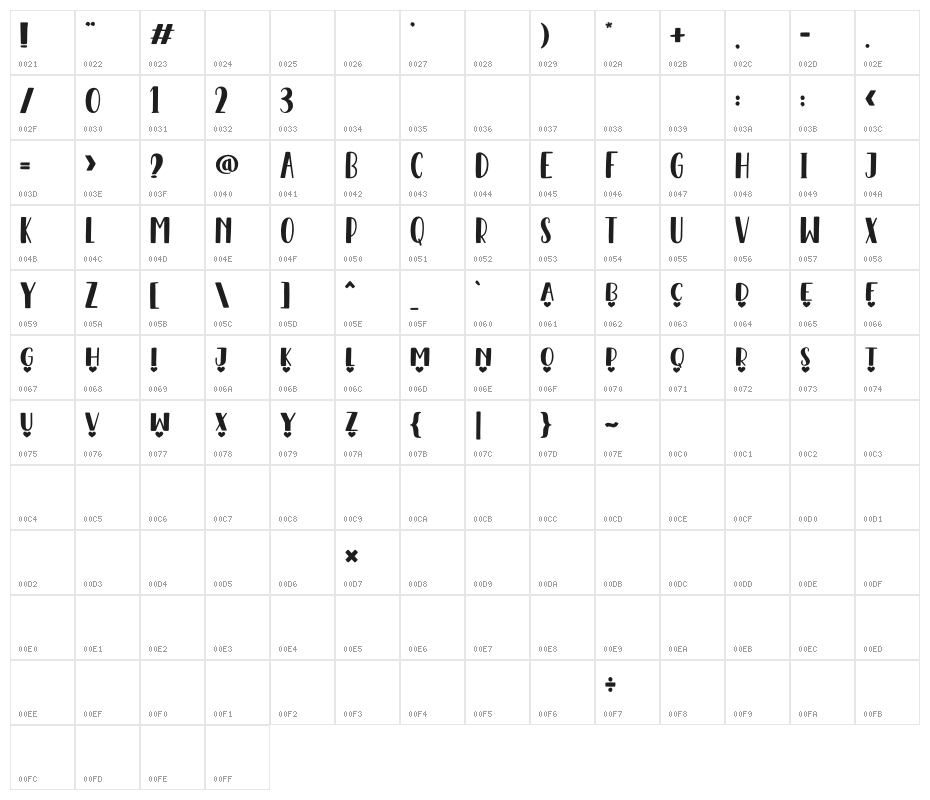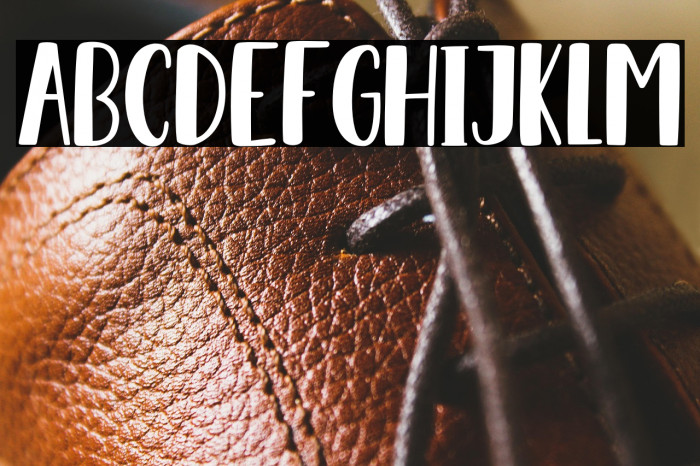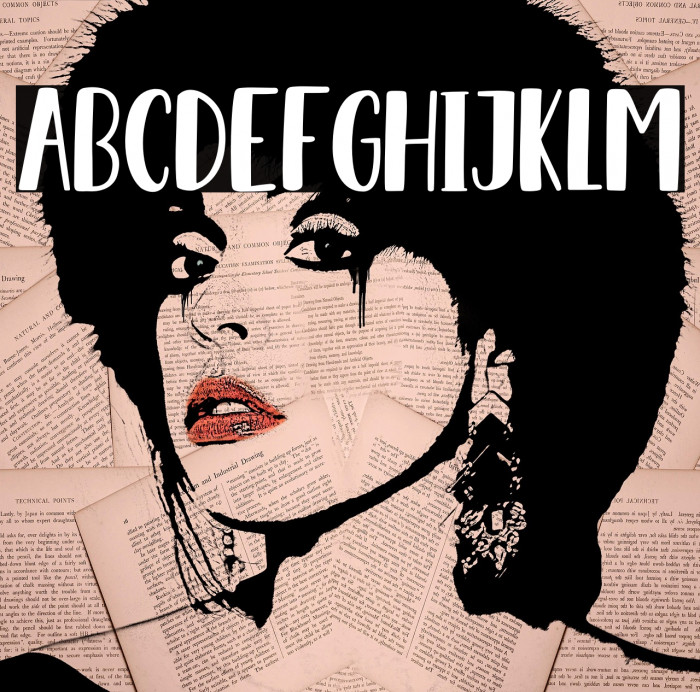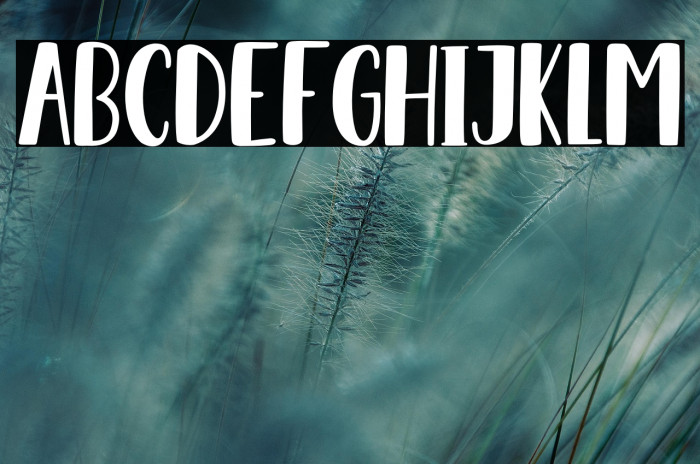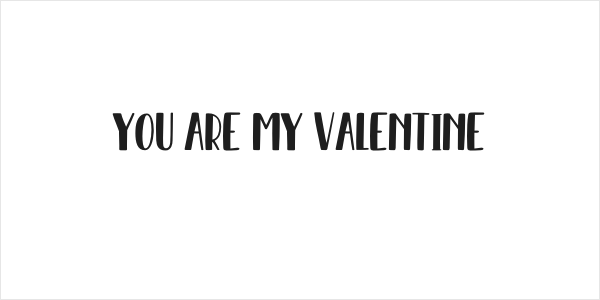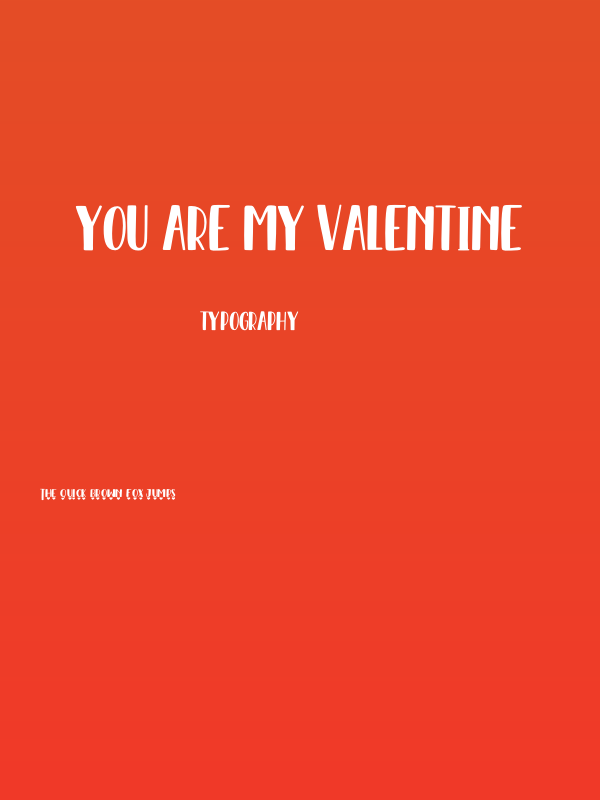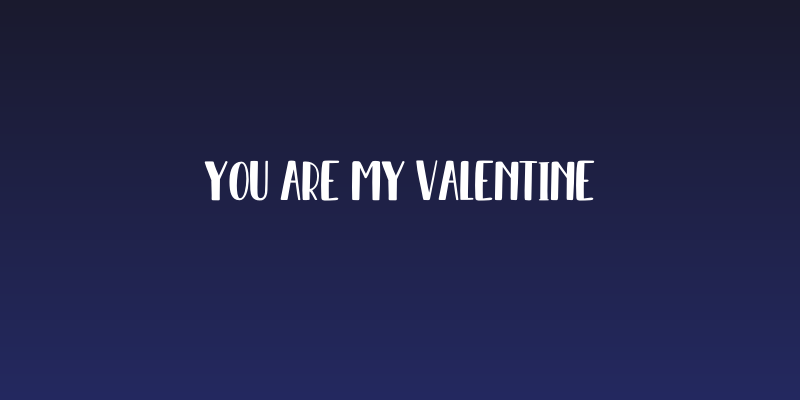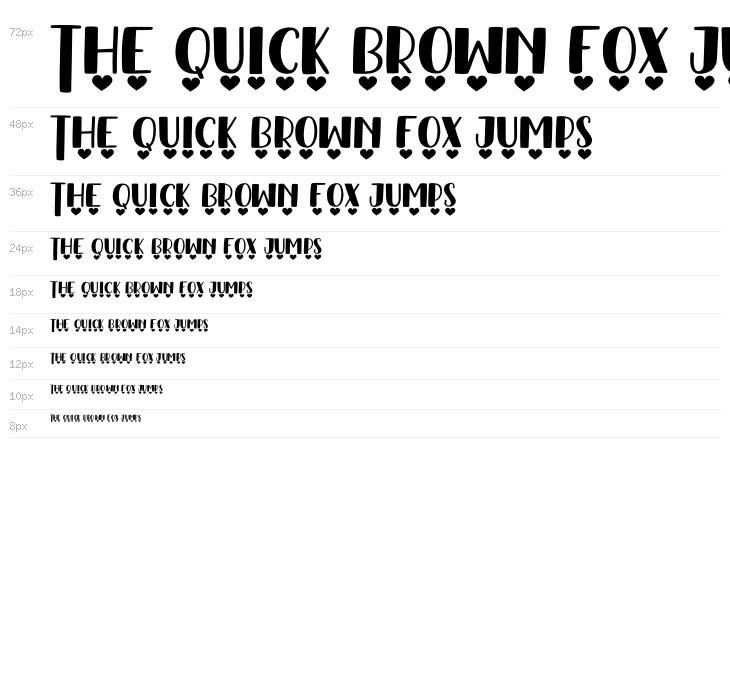
YOU ARE MY VALENTINE Font
YOU ARE MY VALENTINE Description
This playful and bold font features a unique blend of thick and thin strokes, creating a lively and dynamic appearance. The uppercase letters are tall and slightly condensed, with rounded edges that add a friendly touch. The lowercase letters maintain a consistent style, complementing the uppercase with their own charm. The numbers are equally bold, ensuring visibility and impact. Special characters are designed with the same playful aesthetic, making them suitable for creative projects. The font's overall style is decorative, with a modern twist that makes it perfect for eye-catching designs.